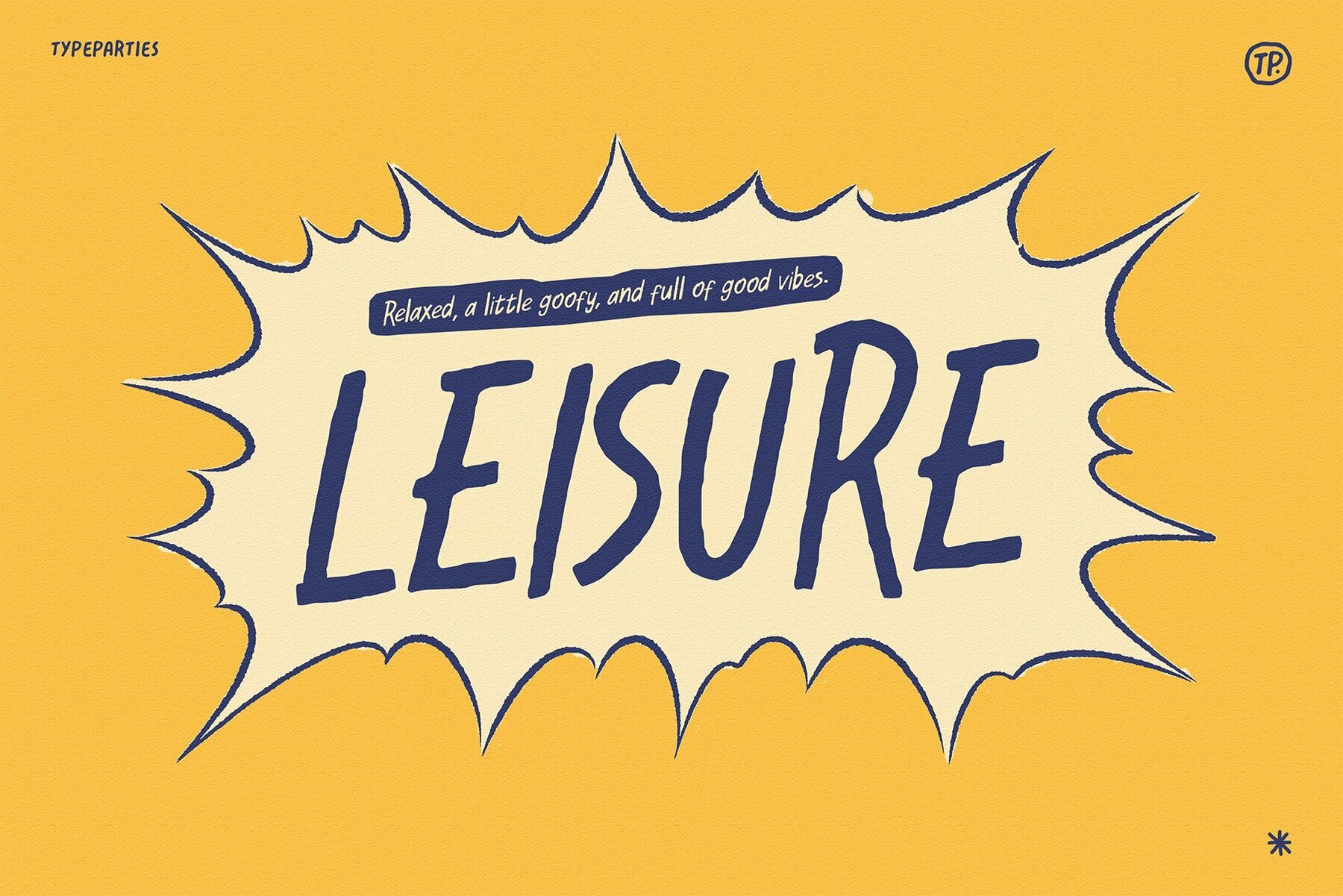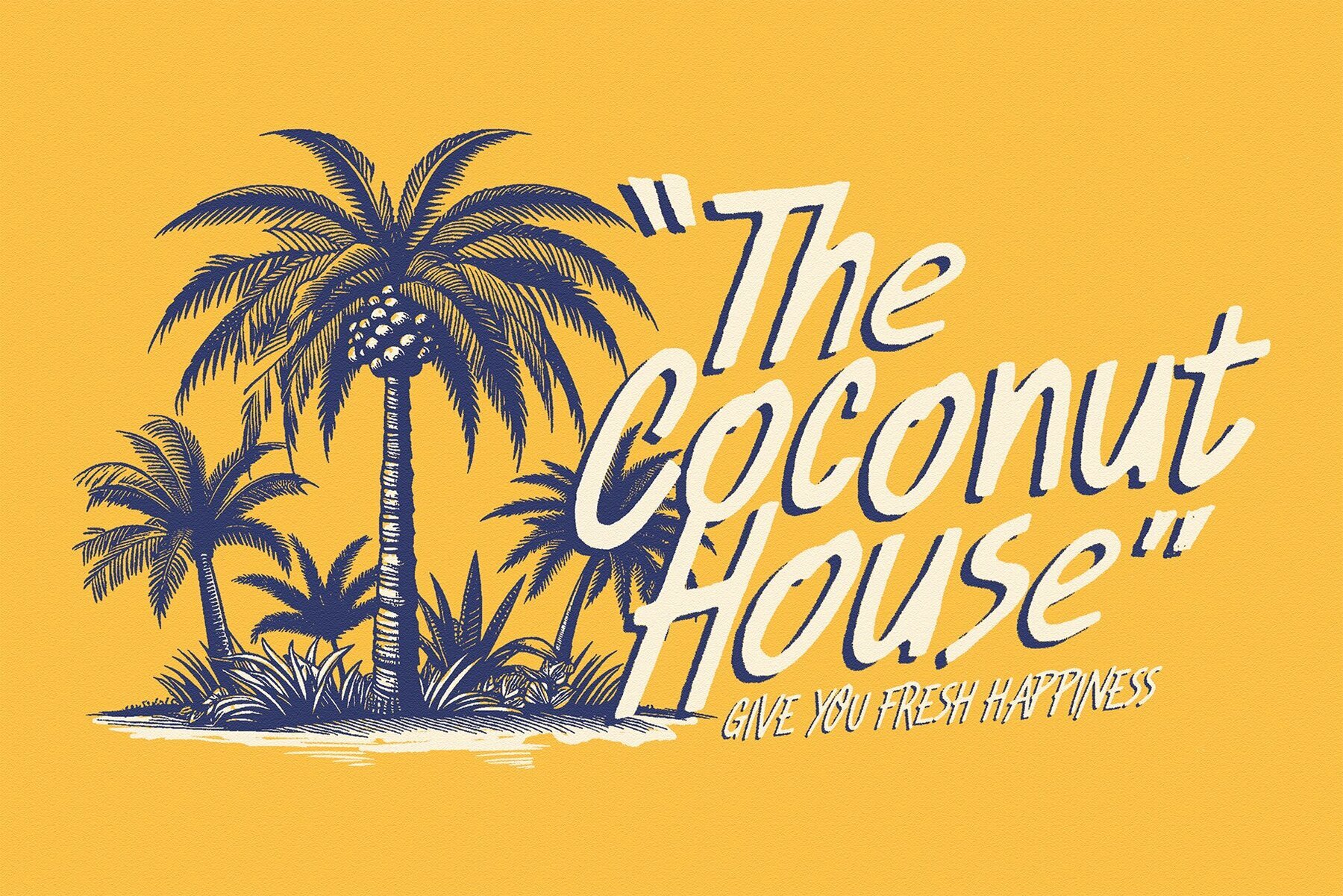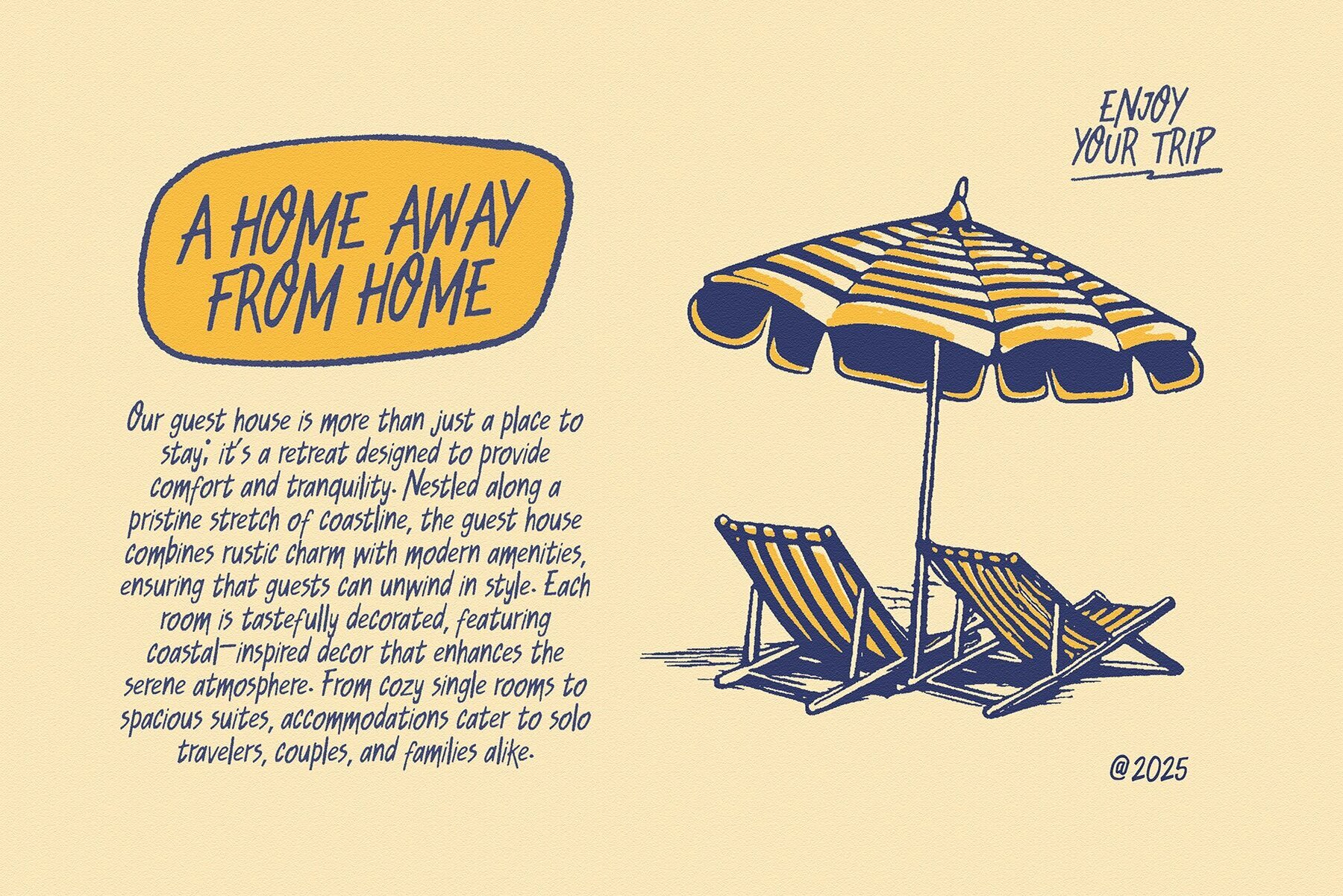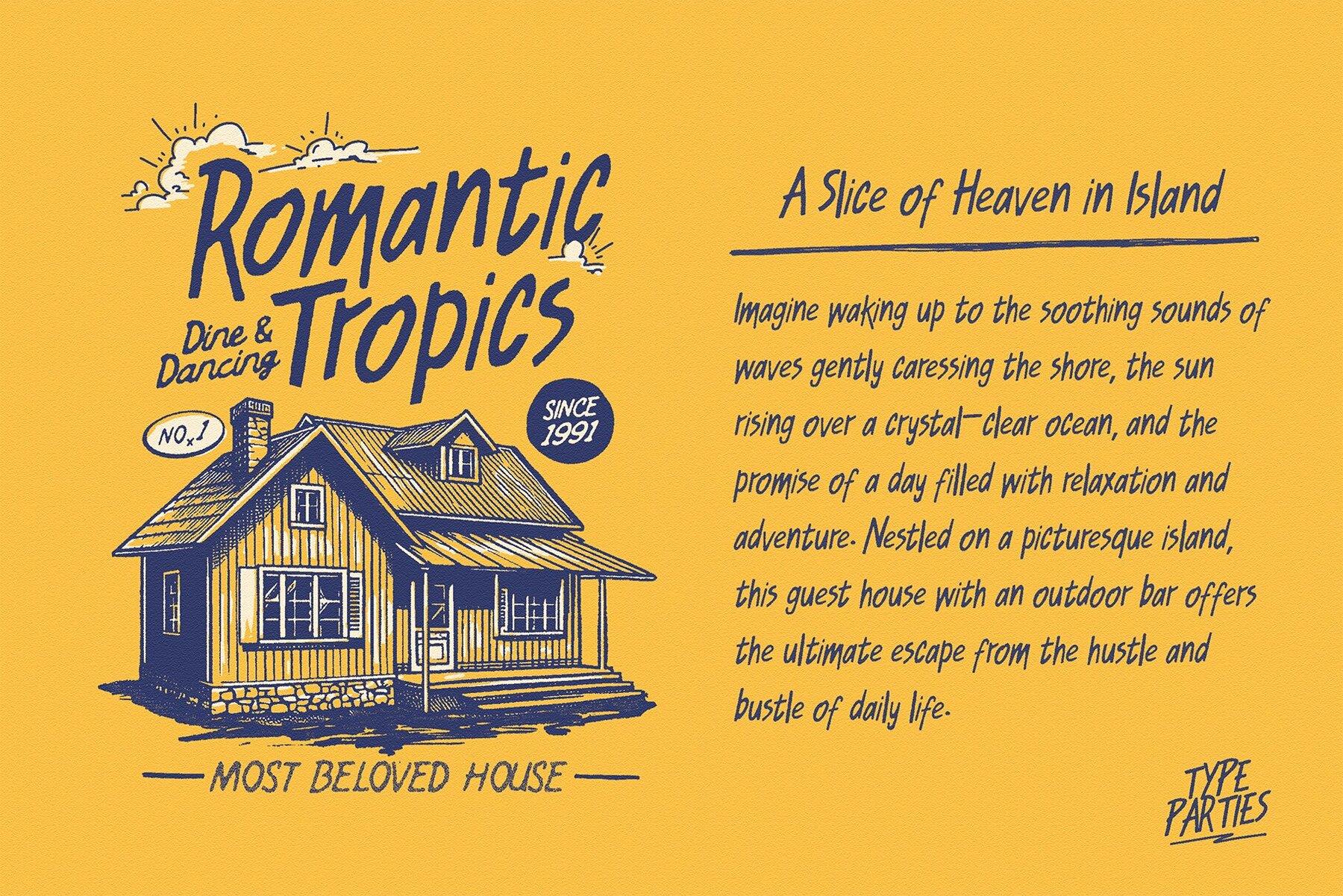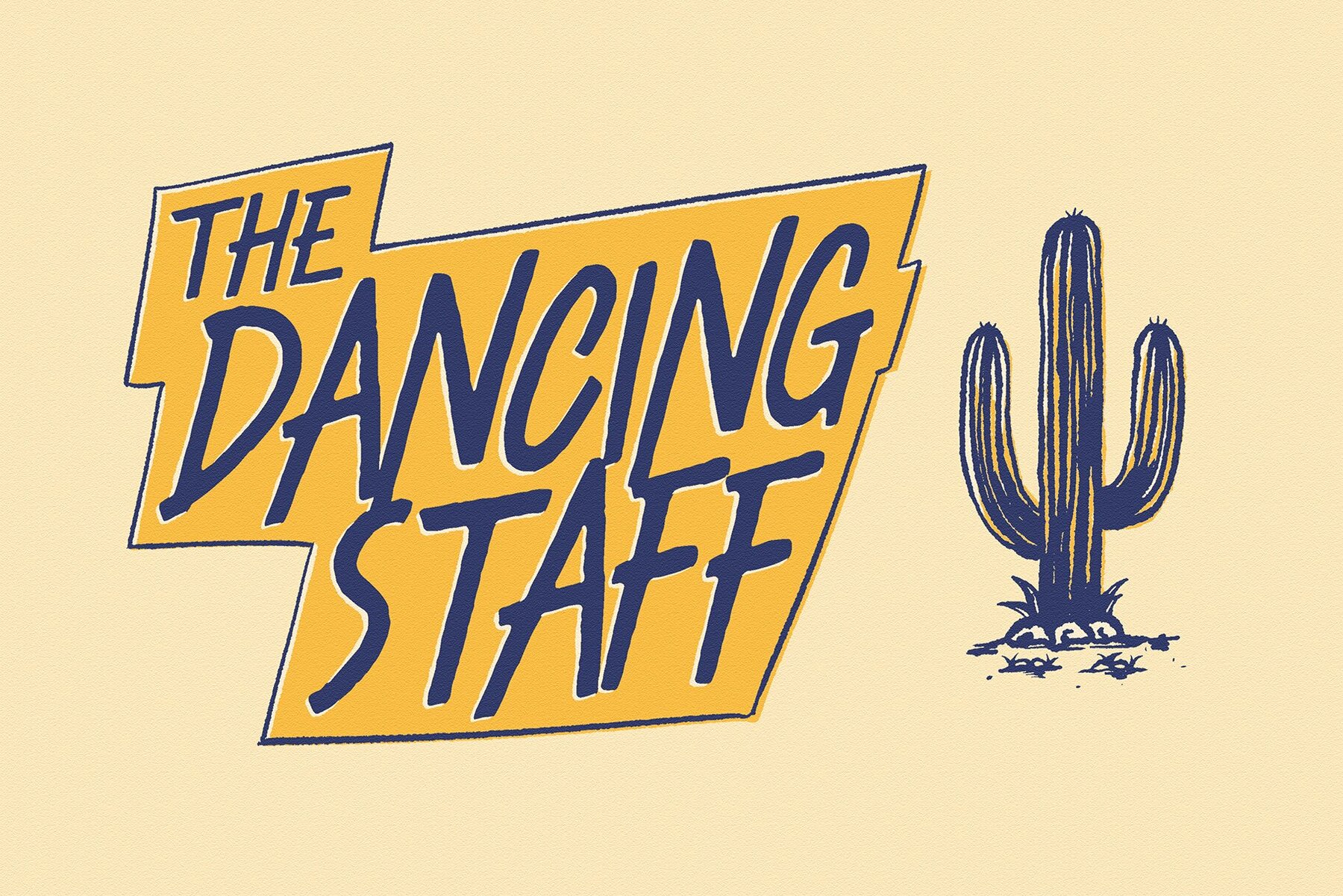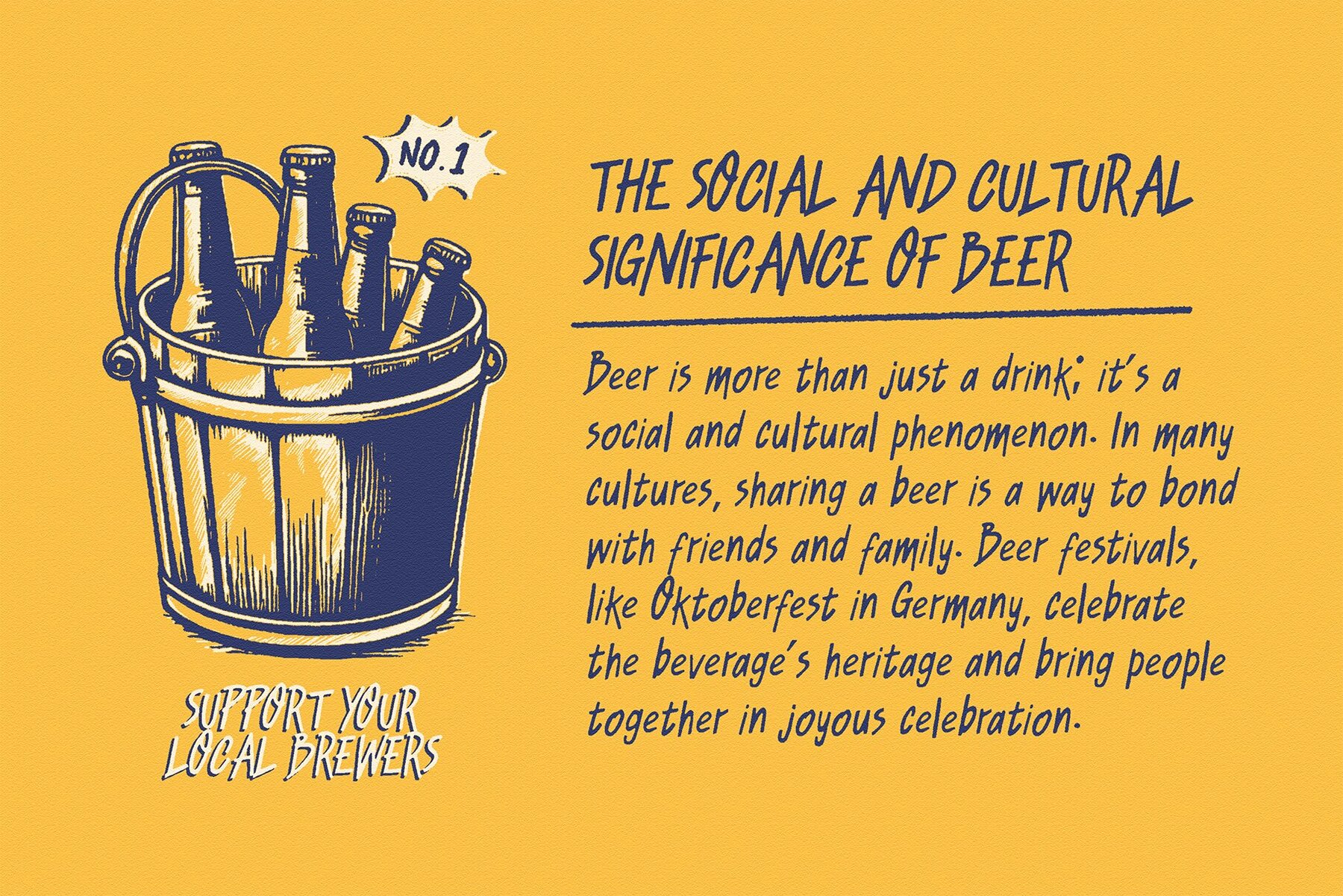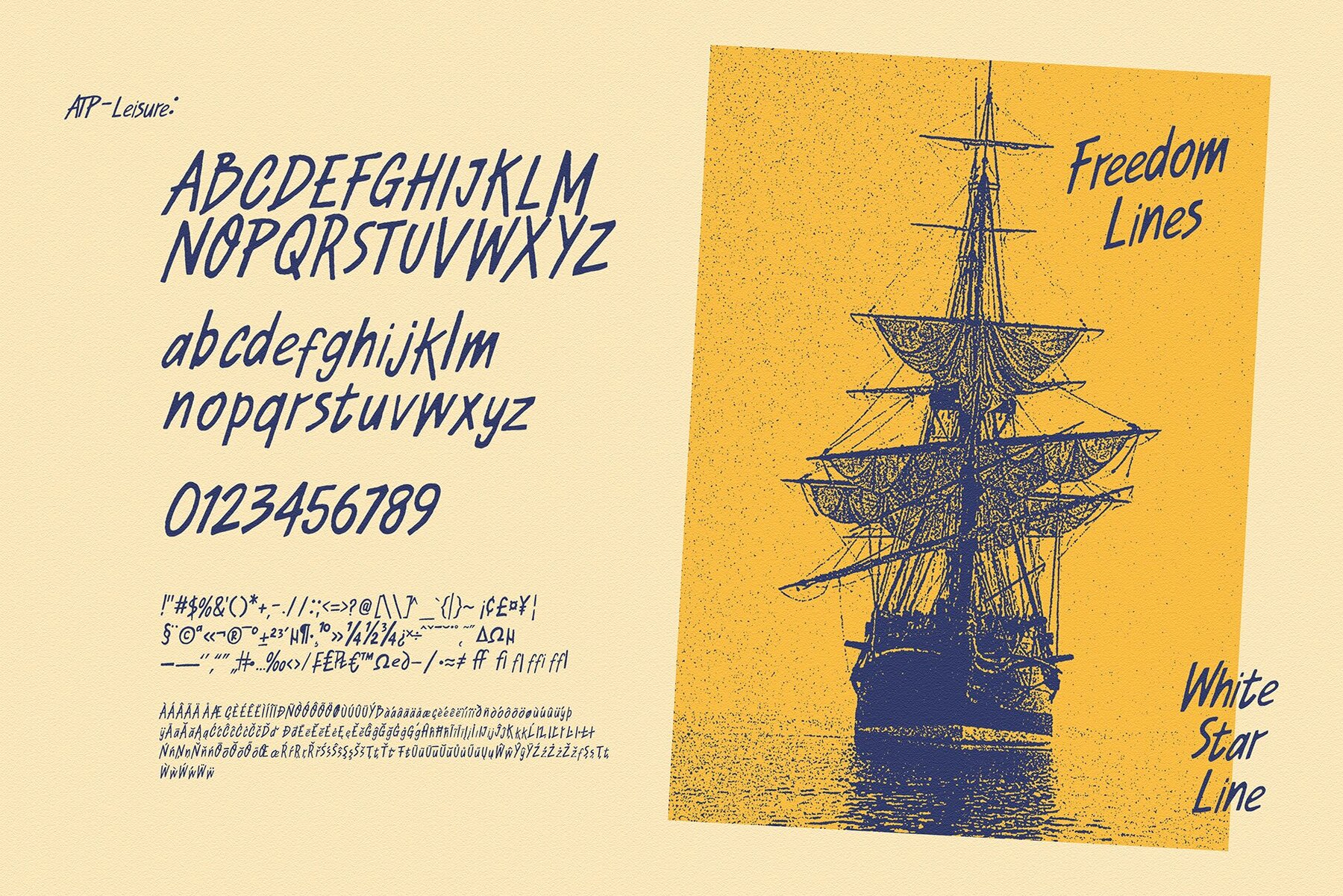
Leisure Font
ATP Leisure
This font embodies the essence of leisurely weekends, combining a relaxed demeanor with a touch of whimsy. Its tall, playful letters gently lean, conveying a message of effortless style without compromising on quality. Perfect for creating sunny posters or beach-themed invitations that exude an invitation to enjoy life without constraints. Handcrafted with charm, it resembles the carefree doodles that emerge on idle Sunday afternoons—perfect for adding personality and warmth to your designs.Relaxed Handwritten Typeface for Easygoing Designs
This update introduces refined kerning and redesigned glyphs for a cleaner, more versatile look. Character spacing has been carefully adjusted to achieve smoother readability and better balance, while select glyphs have been improved to enhance consistency. The result is a font that feels cleaner, easier to use, and adaptable across a wider range of design applications.